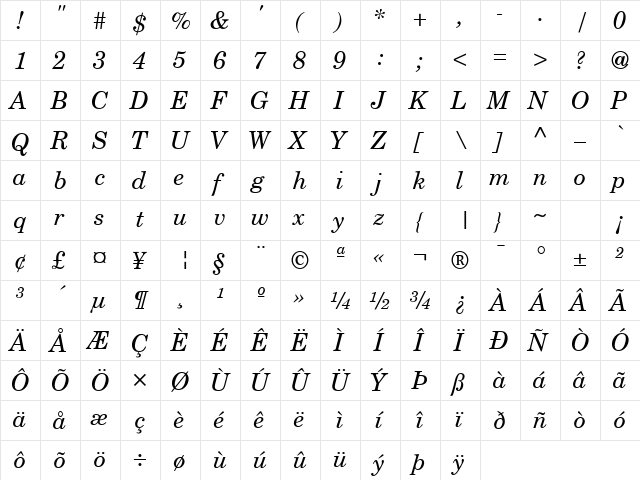
Century Schoolbook Reprise SSi Italic
Design Context for Century Schoolbook Reprise SSi Typeface
Century Schoolbook Reprise SSi takes a measured approach to typography — its balanced proportions and neutral character make it a reliable workhorse for both digital and print work. The slanted form adds forward momentum and visual energy.
Pro Tip: Try Century Schoolbook Reprise SSi for annotation and caption copy alongside an upright companion — the contrast in angle creates a dynamic but ordered typographic system.